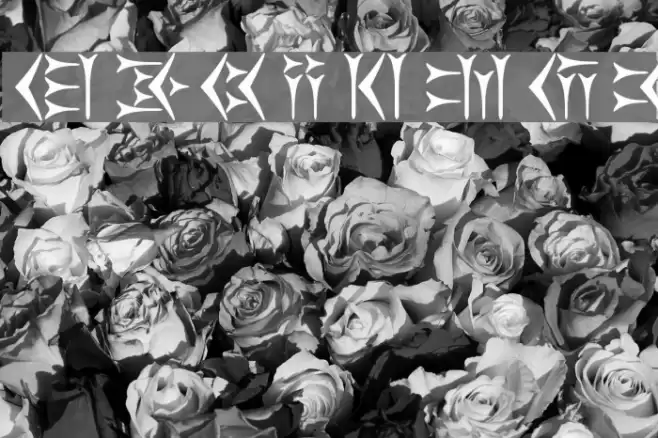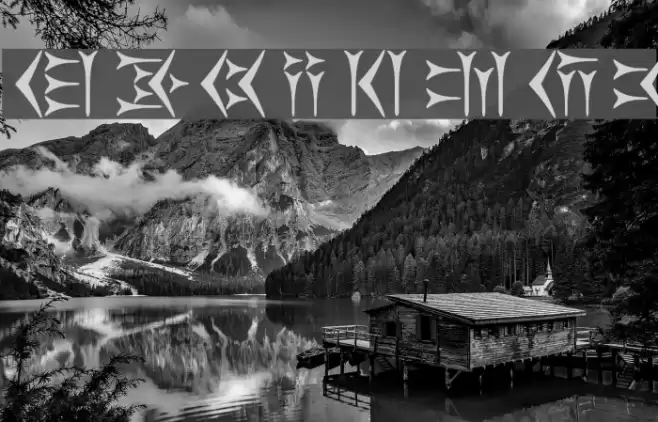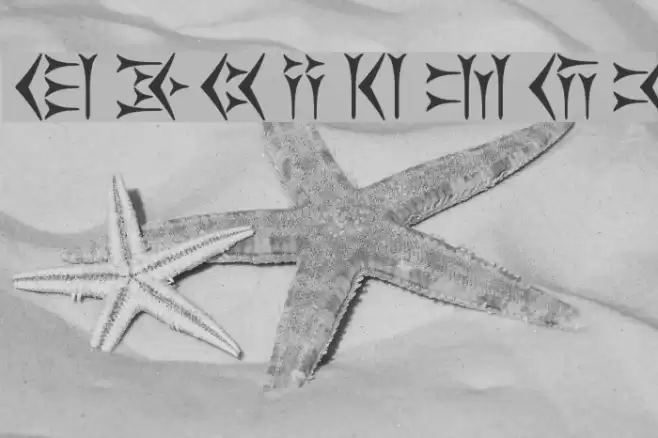
Behistun Font
Behistun Description
This script is an ancient form of writing known for its wedge-shaped marks, typically inscribed on clay tablets or stone. The characters are angular and consist of a series of straight lines and triangular shapes, giving it a distinctive, historic appearance. The script is arranged in horizontal rows, with each character separated by a small space. The overall look is bold and striking, often used for monumental inscriptions. Its unique style reflects the cultural and historical context of its origin, making it a fascinating study for historians and linguists.
An ancient script with wedge-shaped, angular characters used for monumental inscriptions from Farsi fonts.
- Proposed Projects: Ideal for historical documentaries, educational materials on ancient civilizations, or as a decorative element in themed events or exhibitions.
- Overall Style: Historic, Monumental
- Use Case: Decorative inscriptions, Educational materials